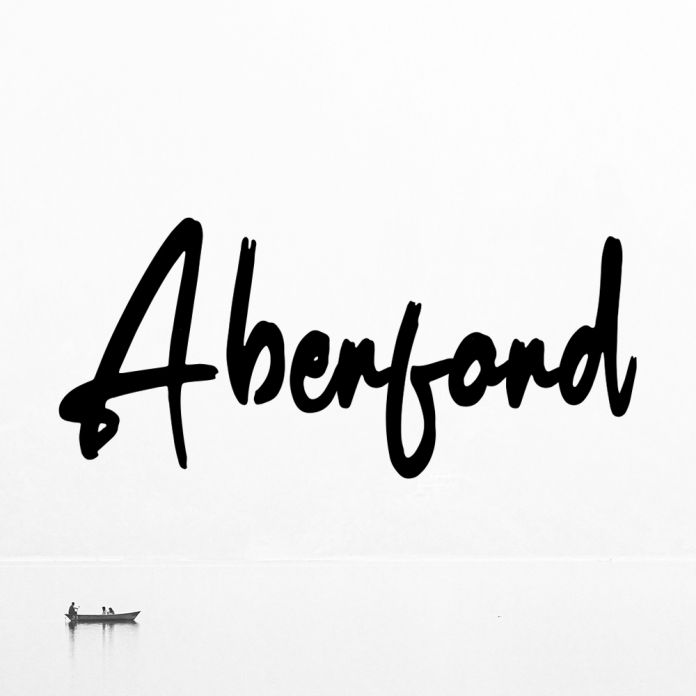
Aberford is a charming handwritten font imbued with a sense of freshness and casual elegance. Its flowing strokes and organic lines evoke a relaxed feel, making it perfect for a variety of design projects. Whether used for branding, invitations, or social media graphics, Angeline adds a touch of warmth and personality.